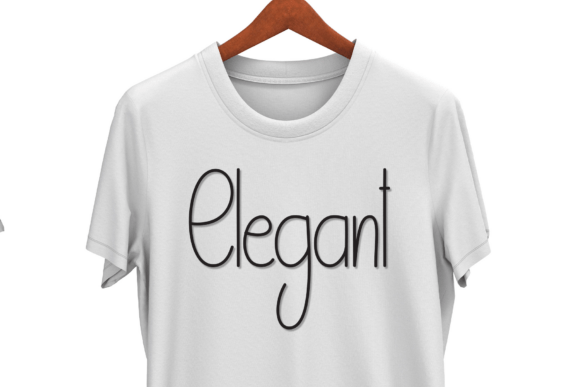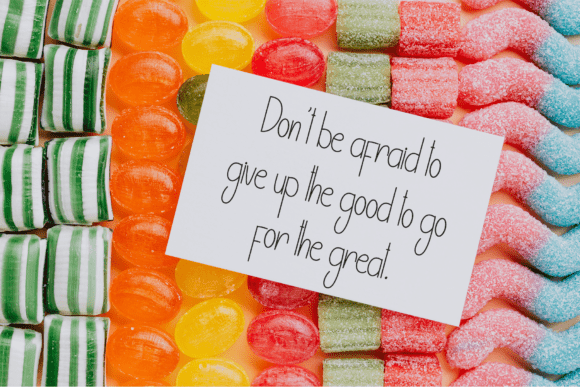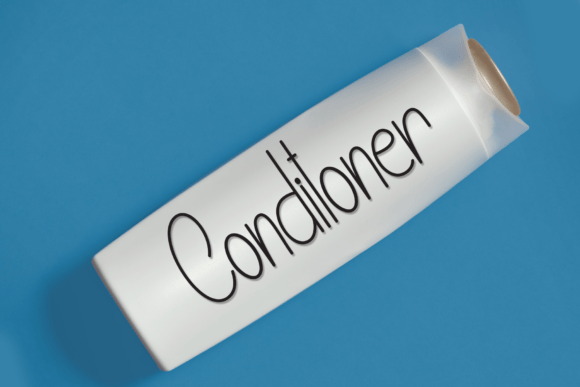
Introduction to Perfectly Wonderful Font
Have you ever stared at a blank canvas, waiting for inspiration to strike? For many creatives, that moment of clarity comes when the perfect font finally presents itself. For designers seeking a truly unique visual identity, we’re excited to introduce the Perfectly Wonderful Font – a game-changing display font that embodies the essence of modern minimalism.
With its clean, monolinear structure and soft, rounded terminals, the Perfectly Wonderful Font is an exceptional choice for designers who crave a high-quality, professional aesthetic. Its transparent background and versatile design make it an ideal resource for creative projects, from modern marketing headers to architectural title blocks. Whether you’re working on a personal or commercial project, this free download is sure to elevate your design to new heights.
As a valuable design resource, the Perfectly Wonderful Font offers endless possibilities for creative expression. Its sleek, contemporary aesthetic is perfect for designers who want to make a lasting impression with their work. So why settle for an ordinary font when you can have a truly extraordinary one? Discover the Perfectly Wonderful Font and take your designs to new levels of sophistication and style.
Key Features of Perfectly Wonderful Font
- High-quality font with a transparent background, ideal for creative projects and designs.
- Features a unique, hand-drawn design with intricate details and subtle textures, adding a touch of elegance to any project.
- Designed to be highly legible, even at small font sizes, making it perfect for use in headings, titles, and body text.
Honest Review: Perfectly Wonderful Font
I recently stumbled upon the Perfectly Wonderful Font, and I must say it’s been a game-changer for my creative projects. This font is a design resource that’s both free and high-quality, making it a great addition to any project.
What works well about this font is its versatility. It’s perfect for use on a transparent background, which adds a level of sophistication to any design. The font’s clean and modern design makes it ideal for a wide range of creative projects, from logos to business cards.
- ✨ Highly customizable: The font comes in various weights and styles, allowing for endless design possibilities.
However, there are some limitations to consider. ⚠️ The font may not be suitable for use in very small sizes, as it can become difficult to read. Additionally, the font may not be as extensive as some other premium font options on the market.
Overall, I’m thoroughly impressed with the Perfectly Wonderful Font. Its high-quality design, versatility, and free download make it a valuable addition to any designer’s toolkit. While it may have some limitations, I believe it’s a great resource for designers looking to add a touch of elegance to their creative projects.
Use the font in conjunction with a transparent background to create a seamless design. Experiment with different font sizes and colors to add visual interest to your project. The Perfectly Wonderful Font is a versatile design resource that can be used in a variety of creative projects.